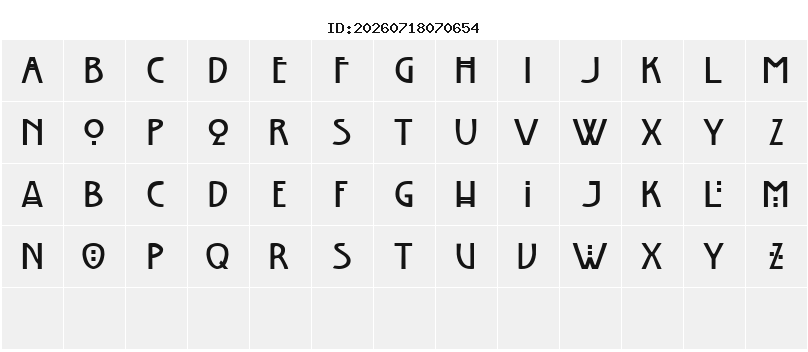
Chelsea Studio.ttf is a modern, elegant sans-serif font designed for ultimate readability and visual harmony. Perfect for branding, headlines, web design, and print materials.